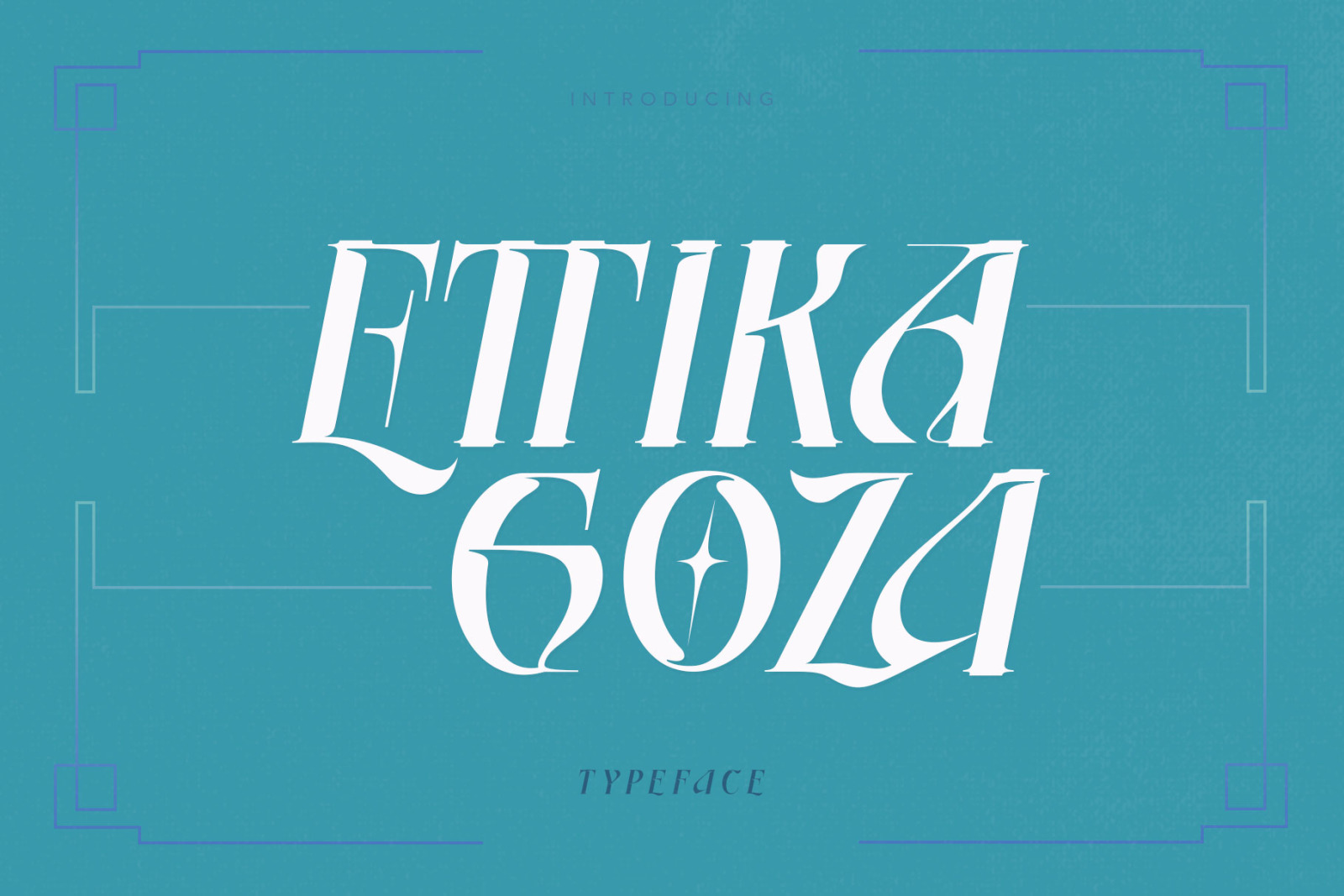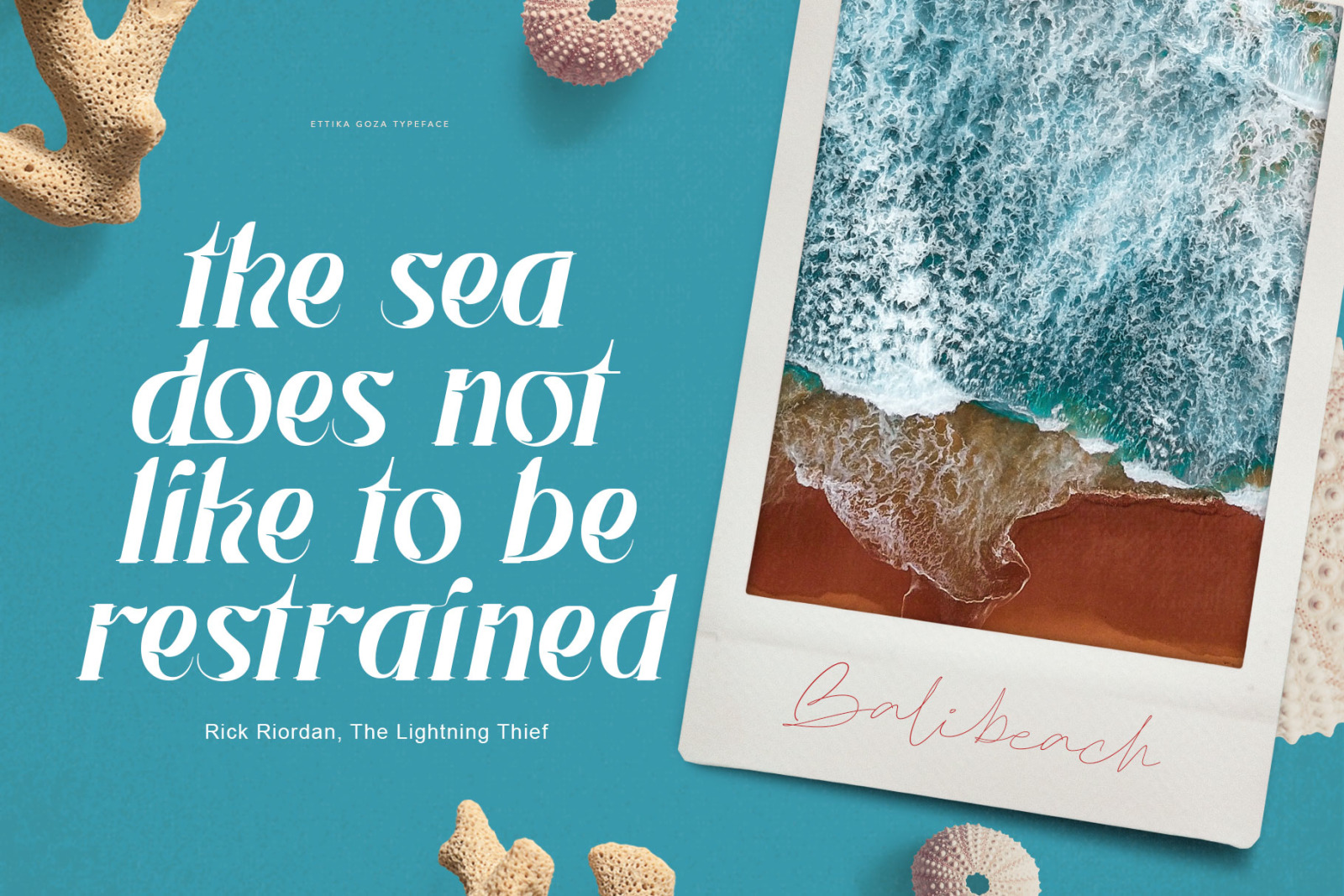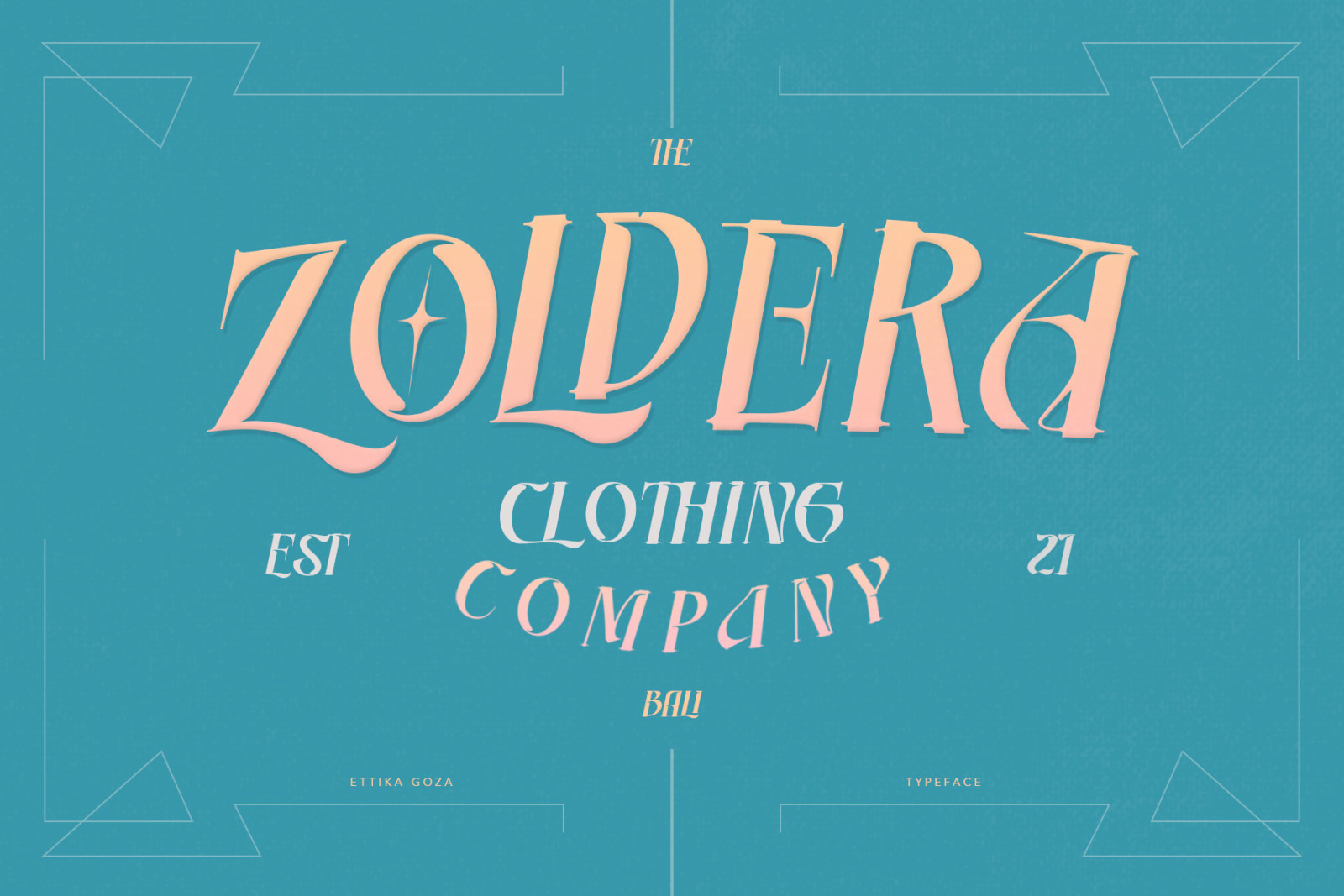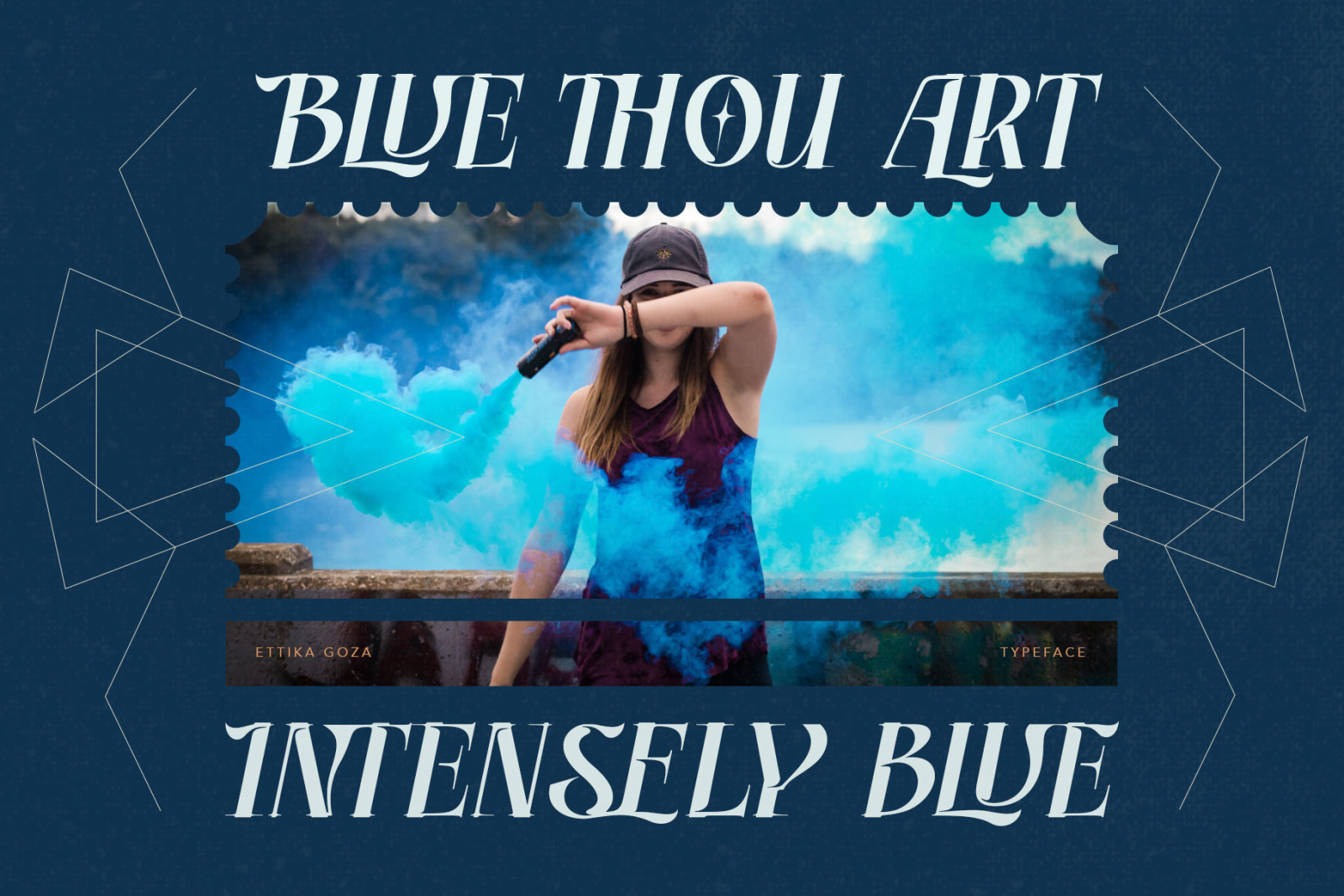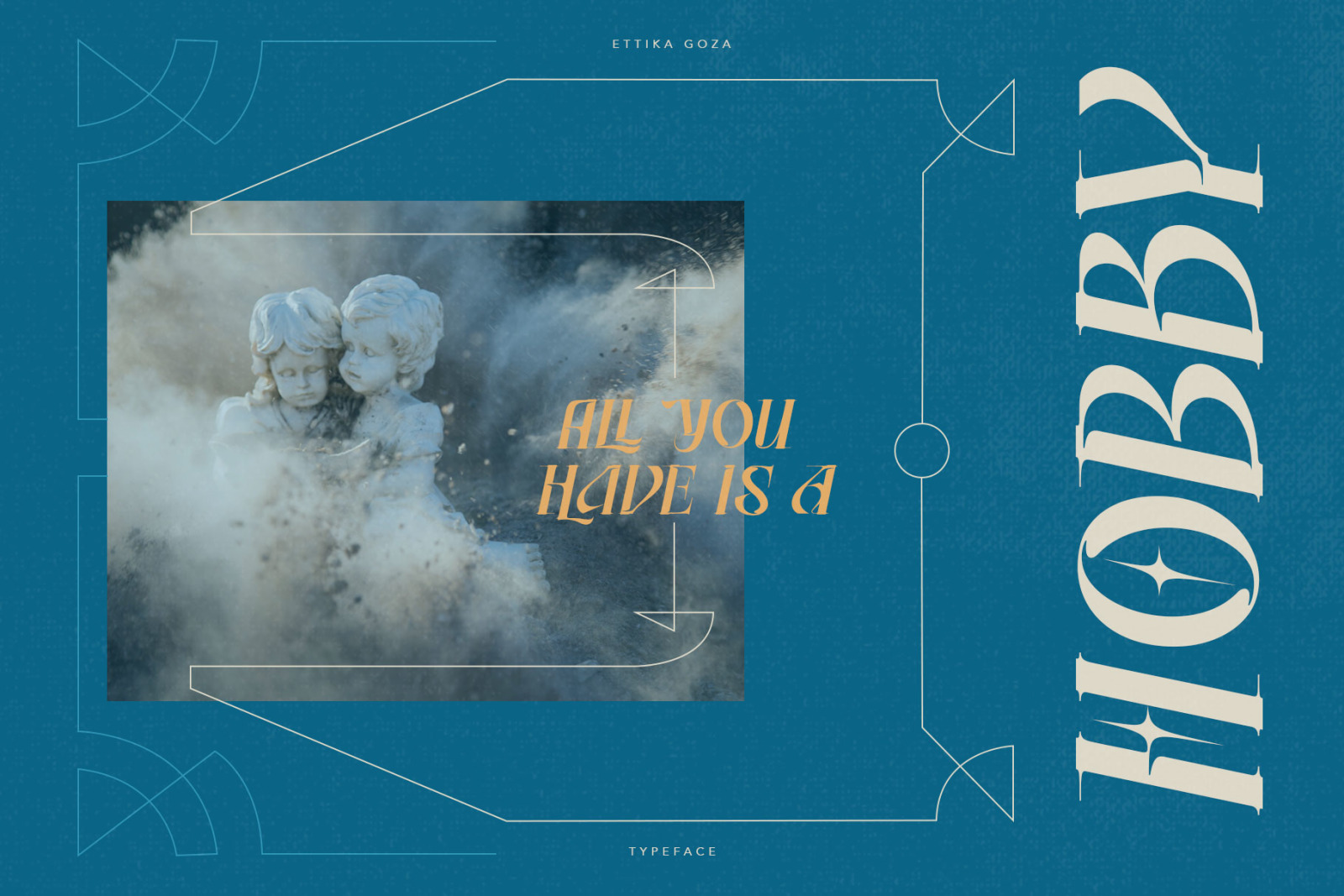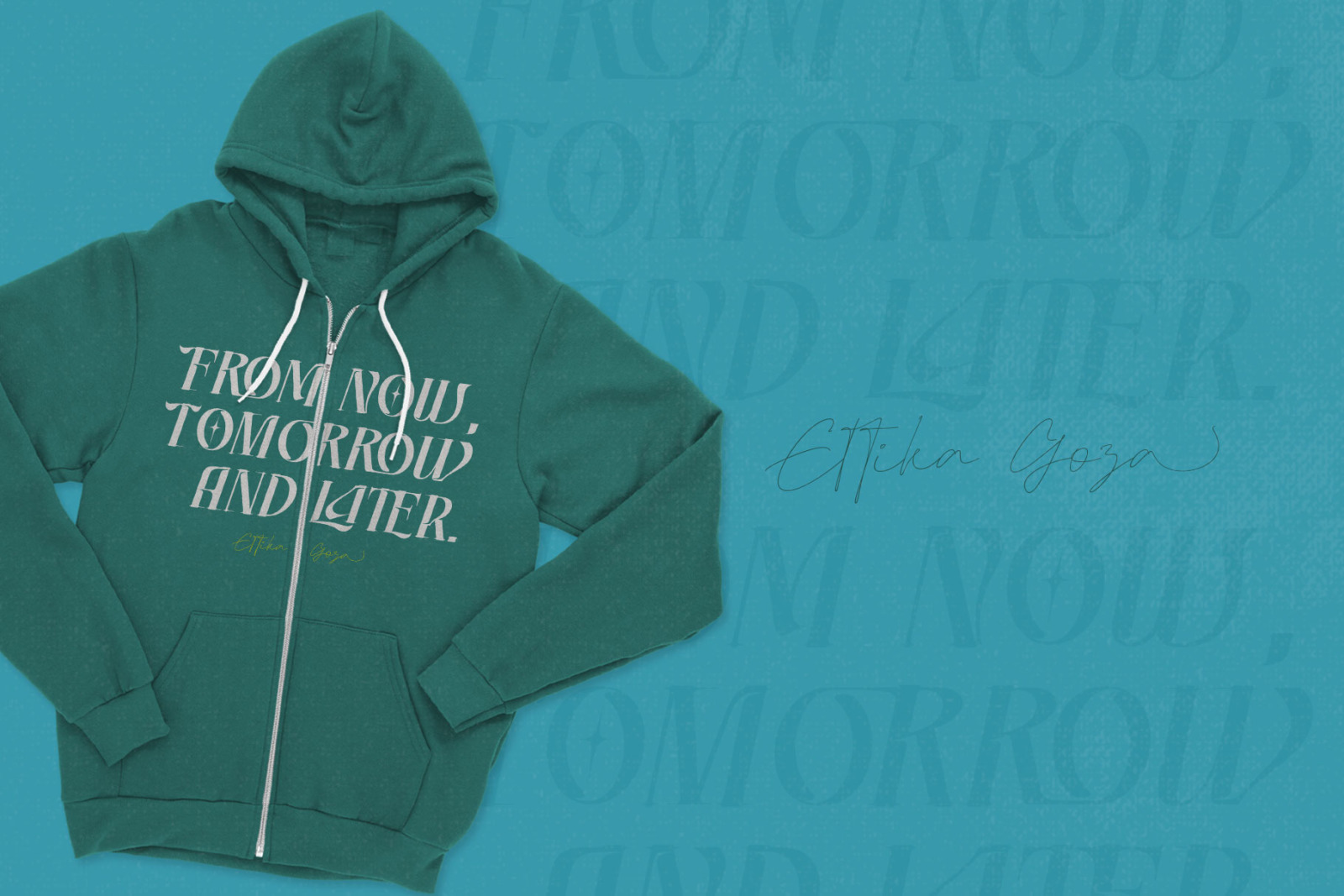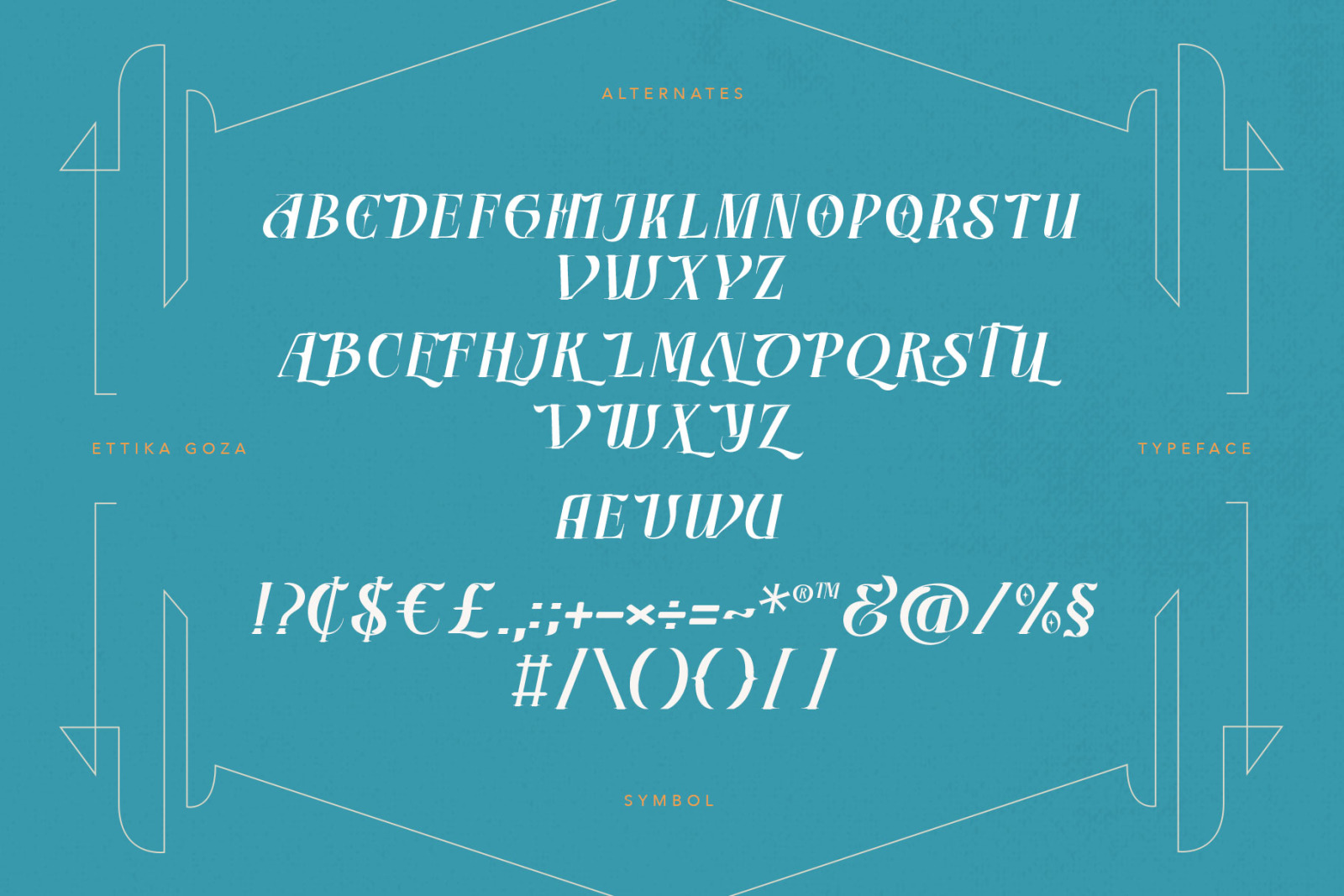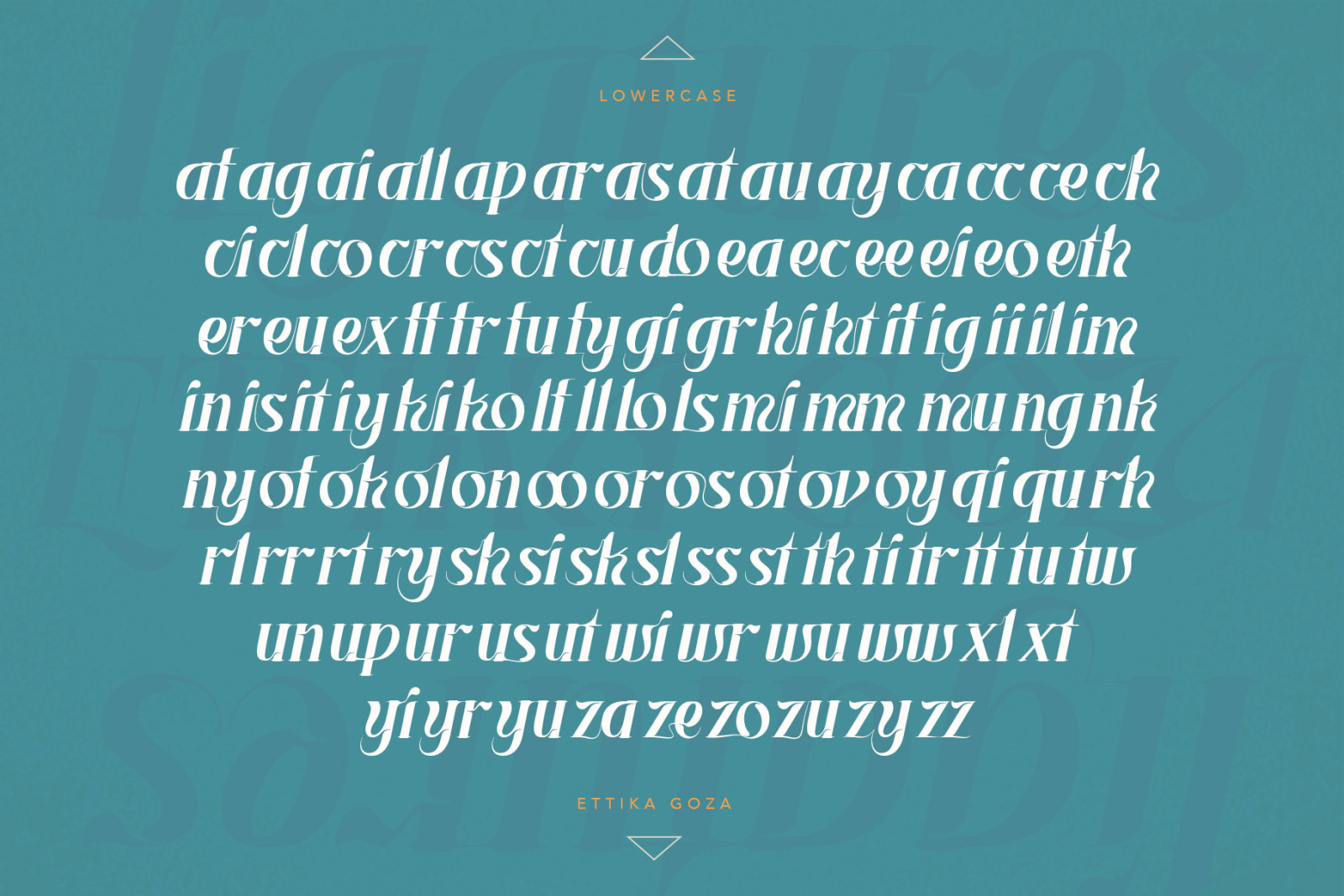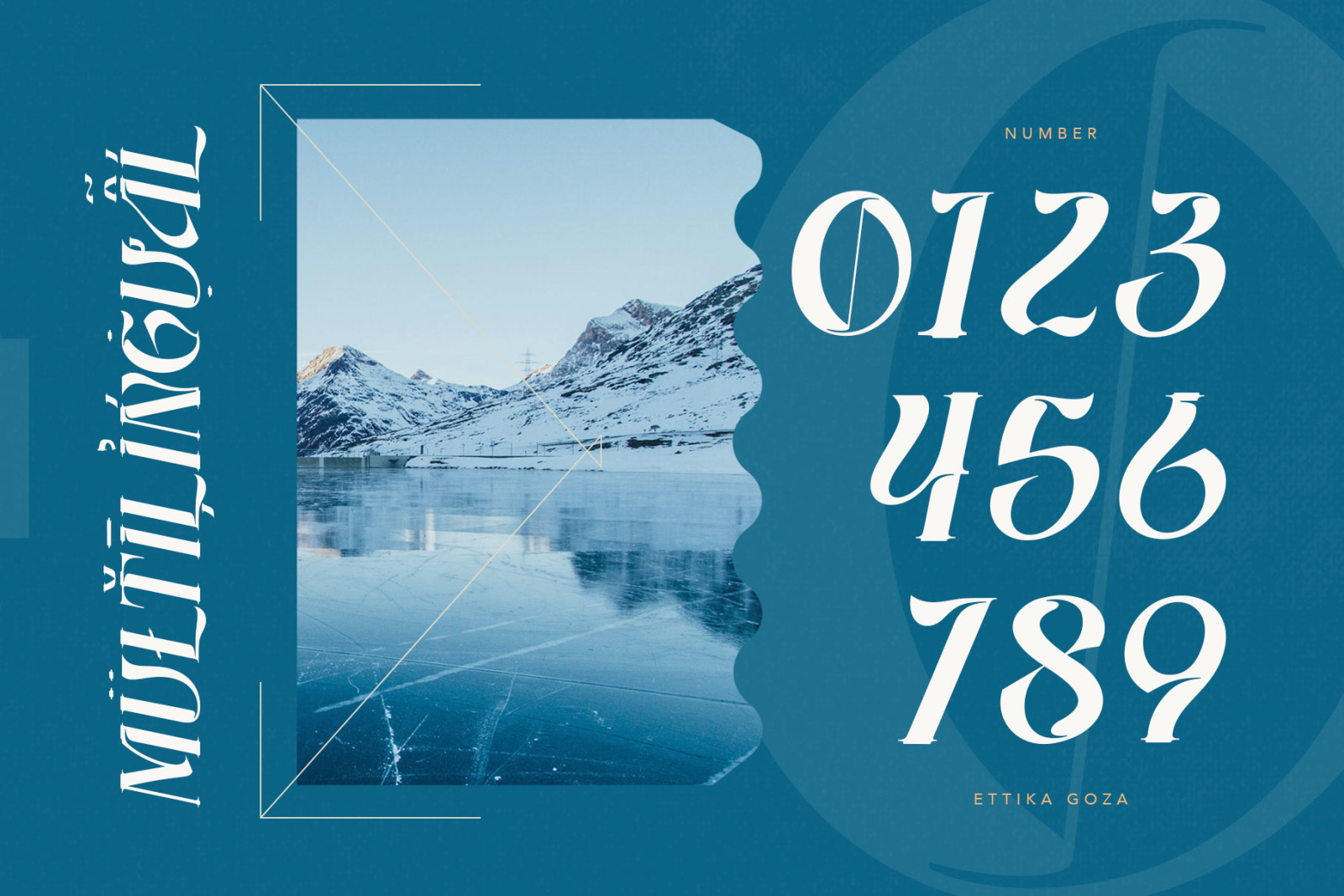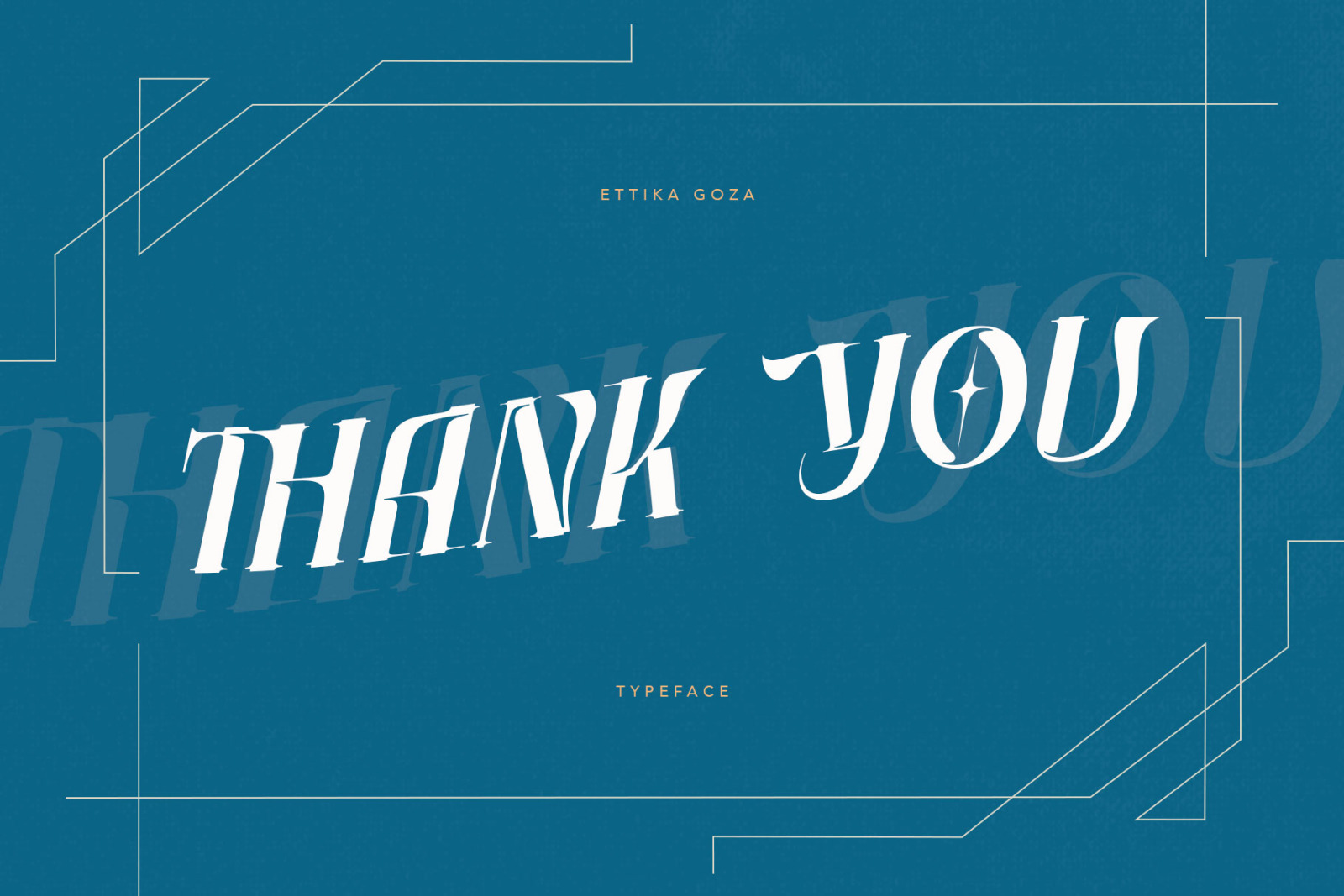
Ettika Goza Font
Ettika Goza Typeface
Modern Serif font with alternate and unique style, a display font in a elegant slant and bold style that makes your designs unique and distinctive. It is perfect for designs with classic themes, retro design, poster design and others.
A-Z Character Set
Numerals & Punctuations (OpenType Standard)
Stylistic Alternates
Multilingual
Ligatures